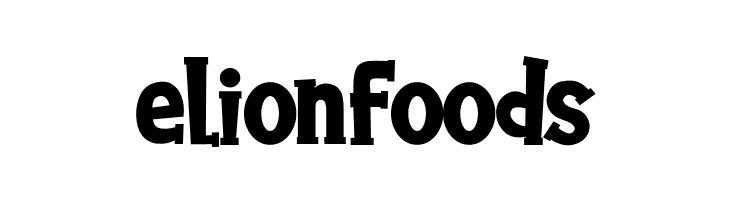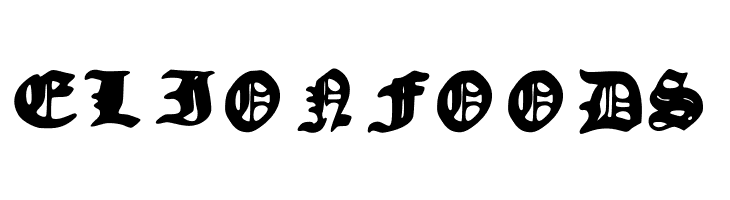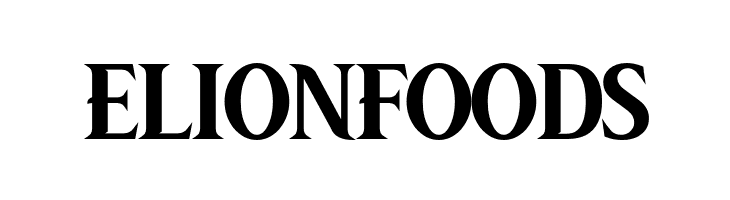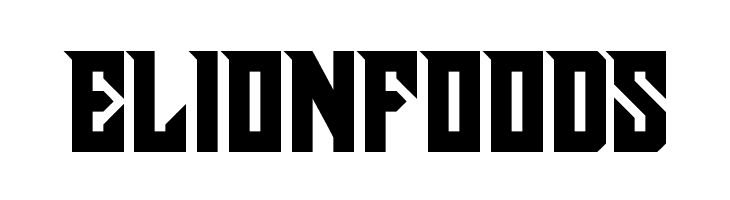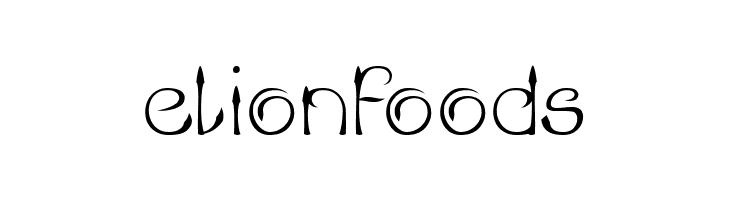
A playful, handwritten-style font with irregular, whimsical strokes.
A bold, angular serif font with a distinctive, edgy appearance.
A rugged, adventurous font with a hand-drawn, pirate map aesthetic.
Pirate-themed decorative dingbat font with detailed icons.
A bold, playful font with skull and crossbones motifs integrated into each character.
A dynamic, hand-drawn script font with bold, sweeping curves and sharp angles.
A playful, handwritten font with uneven strokes and a casual style.
A rugged, distressed font with a vintage, hand-drawn appearance.
A bold, nautical-themed font with playful, three-dimensional characters.
A rugged, hand-drawn font with a mysterious, adventurous style.
A rugged, textured font with a hand-crafted, adventurous feel.
A bold, illustrative display font with skull and t-shirt themed icons.
A display font made of diverse flag icons and symbols.
A pictorial font with historic and mythological character silhouettes.
A rugged, hand-drawn font with bold, textured characters and an adventurous feel.
A whimsical, hand-drawn font with a playful, treasure map theme.
A bold, distressed font with a rebellious, hand-painted style.
A playful, skull-themed decorative display font with hand-drawn illustrations.
A bold, distressed font with a rugged, maritime-inspired aesthetic.
A playful, hand-drawn font with quirky serifs and a whimsical style.
Playful skull and crossbones icon font with bold, circular glyphs.
A display font made up of diverse skull and crossbones illustrations.
A bold, decorative font with swirling, intricate letterforms.
A decorative font with flag-like uppercase letters and smooth handwritten lowercase letters.
A rugged, hand-drawn font with a distressed, historical appearance.
A bold, decorative font with intricate skull and crossbones designs.